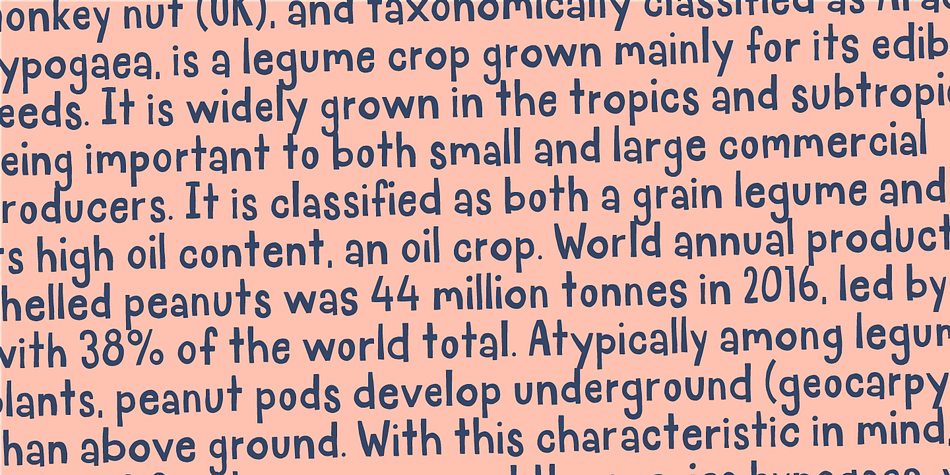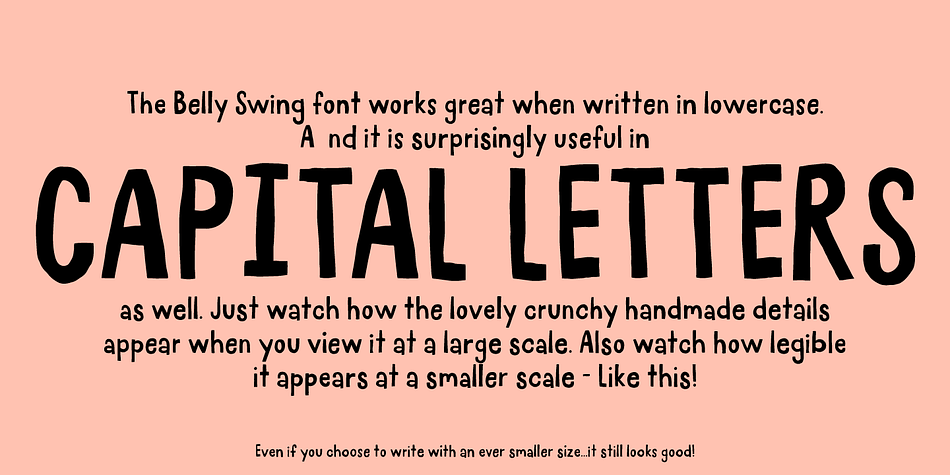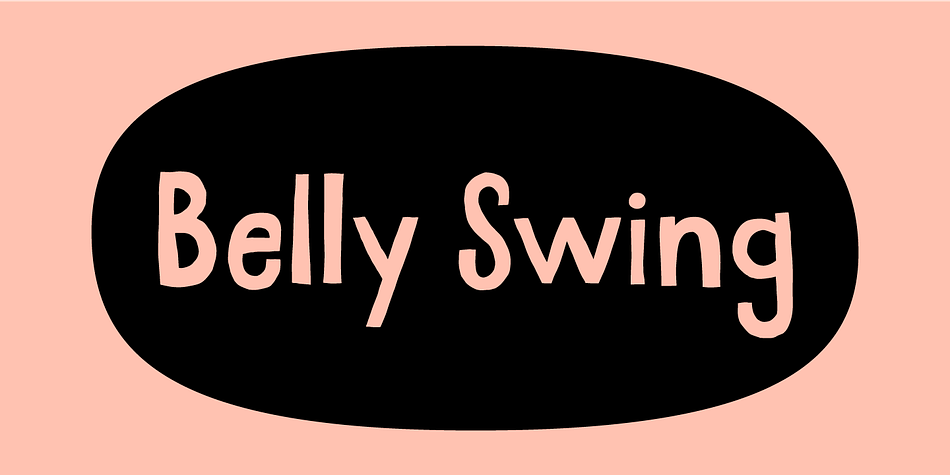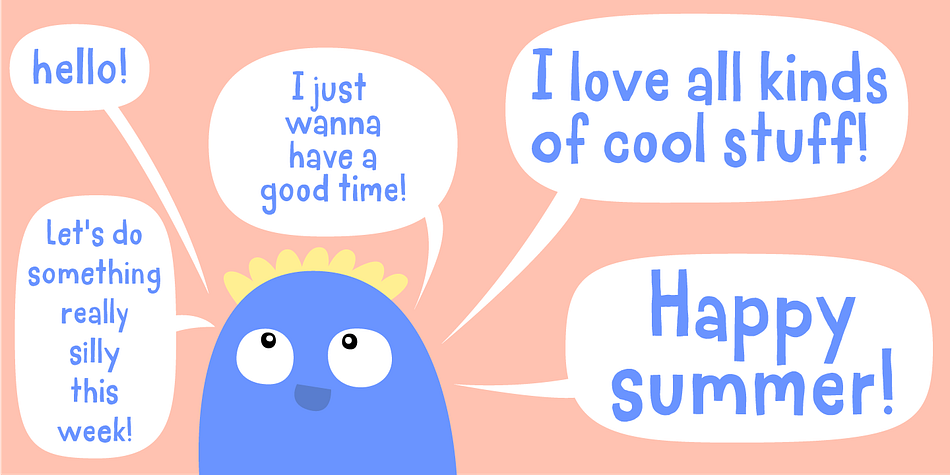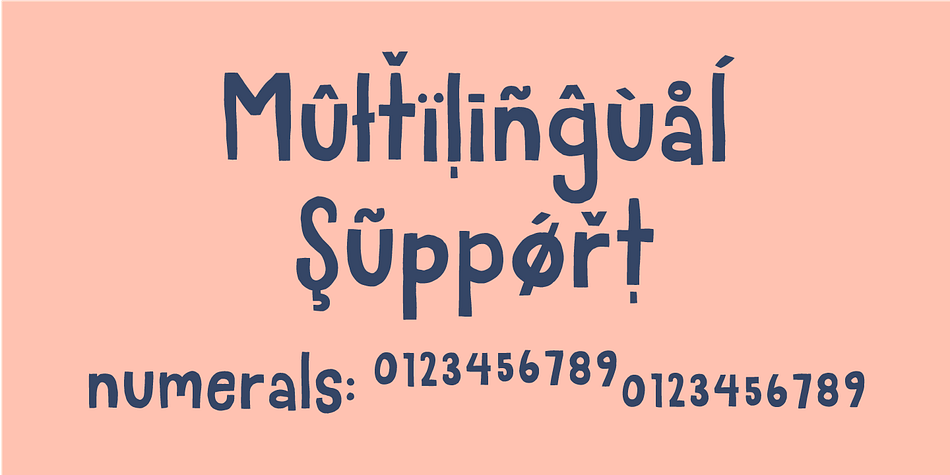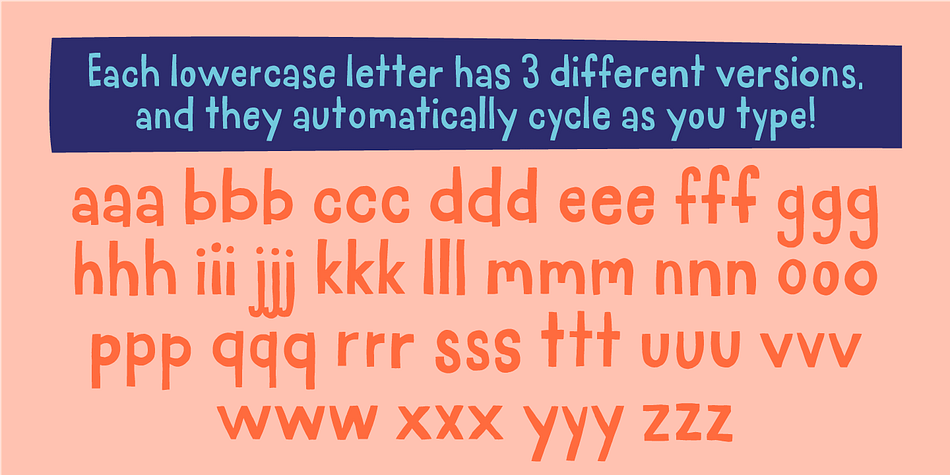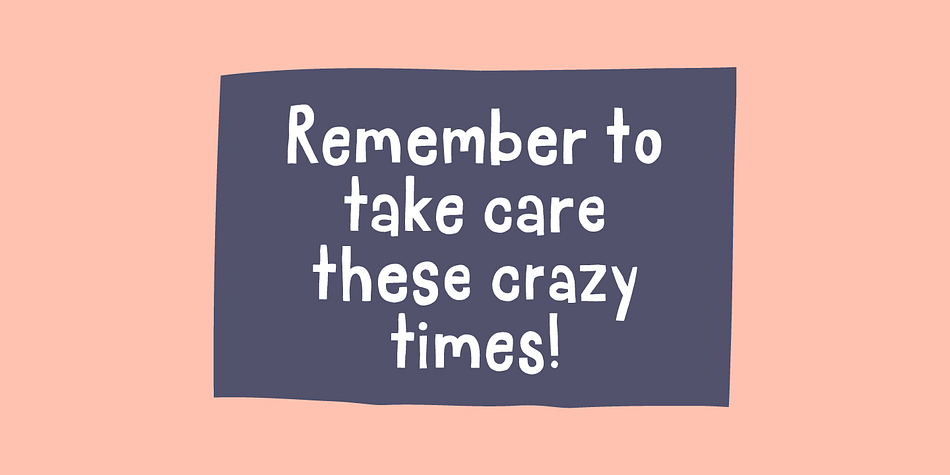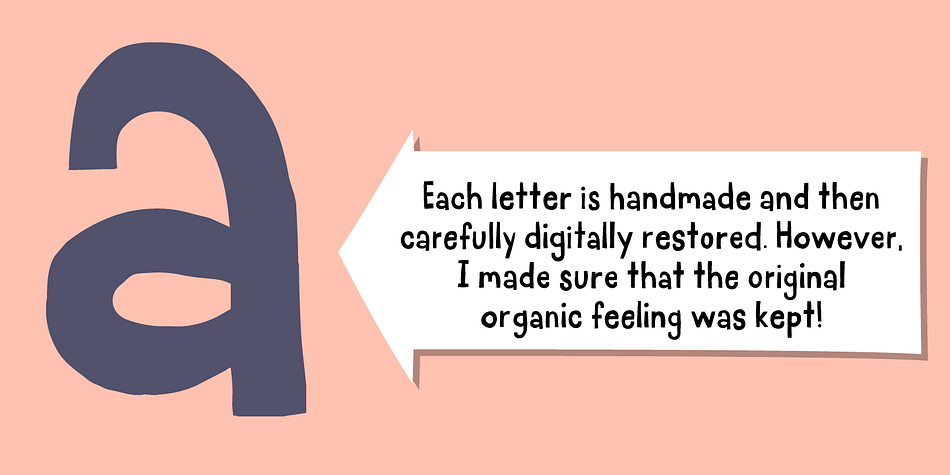
Designed by Jakob Fischer, Belly Swing is a hand display and hand drawn font family. This typeface has two styles and was published by Bogstav.
Belly Swing is natural, organic and kind of cute. It’s my handmade sans font with contextual alternates - meaning that you have 3 different versions of each lowercase letter to choose from!